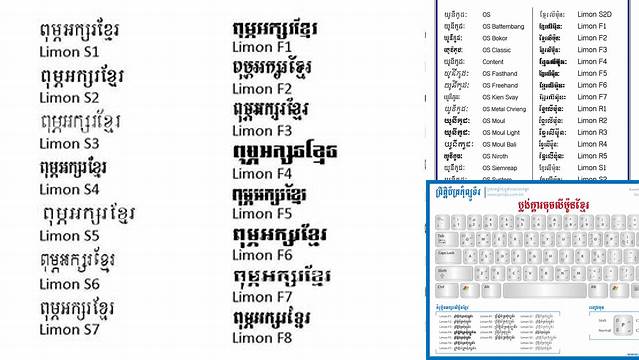
Hey guys! Are you looking for a cool new font to spice up your Android device? Look no further! This guide is all about the Khmer Limon font, a beautiful and unique typeface perfect for adding a touch of Khmer culture to your phone or tablet. And the best part? We'll show you how to get the Khmer Limon font free download for Android APK! Let's dive in and get your devices looking fresh.
Khmer Limon Font: A Taste of Cambodia on Your Android
So, what exactly is the Khmer Limon font? Well, it's a digital representation of the elegant and flowing Khmer script, the writing system used in Cambodia. The font captures the essence of Khmer calligraphy, with its graceful curves and distinctive shapes. Think of it as a digital artist’s rendition of the Khmer language! This font is designed to be both beautiful and readable, ensuring your text looks great whether you're sending messages, browsing the web, or creating documents. The Khmer Limon font is not just about aesthetics; it's about celebrating Cambodian culture and making it accessible on modern devices. By downloading and using this font, you're essentially bringing a piece of Cambodia into your daily digital life.
This particular font, the Khmer Limon font, is known for its clarity and readability, even at smaller sizes. This makes it ideal for various applications on your Android device, from simple text messages to more complex documents. The developers have put a lot of thought into making sure it displays correctly on different screen sizes and resolutions, guaranteeing a consistent and visually appealing experience. When you choose the Khmer Limon font, you're selecting a font that's both aesthetically pleasing and practical. It will enhance your overall user experience. Whether you're a native Khmer speaker or just someone who appreciates beautiful typography, the Khmer Limon font is a fantastic choice for your Android device. It is a way to show your appreciation for Khmer culture while adding a touch of elegance to your digital life. We're talking about the Khmer Limon Font here.
The Beauty of Khmer Script: Why Choose the Khmer Limon Font?
Why should you choose the Khmer Limon font over other fonts available for your Android device? Well, the beauty of Khmer script is a significant reason. The elegant curves and distinctive shapes of the Khmer letters are visually stunning. The font provides a unique way to express your appreciation for Cambodian culture. It’s not just about functionality. It is also about making your device beautiful. Khmer script is more than just a collection of symbols. It is a rich cultural heritage. Each character tells a story, representing the language and traditions of Cambodia. Using the Khmer Limon font on your device is like carrying a piece of Cambodia with you wherever you go. It's a statement of cultural pride. For those who have a connection to Khmer culture, the font is a way to stay connected. For others, it is a way to celebrate the beauty of Khmer script and learn more about the language. Also, the font is user-friendly and ensures readability. It makes sure your text remains clear and easy to read. Whether you're sending a quick message or reading a longer article, the font will enhance your overall experience. So, why not give it a try? This Khmer Limon font will enhance your device's look and make your daily digital life more enjoyable.
Future Trends: The Evolution of Khmer Fonts on Android
As technology advances, we can anticipate exciting trends in Khmer fonts on Android. The Khmer Limon font is already great. Future trends include: Improved compatibility. More fonts. More customization options. Enhanced integration. By embracing the future, users can have a better experience. The Khmer Limon font will continue to evolve.